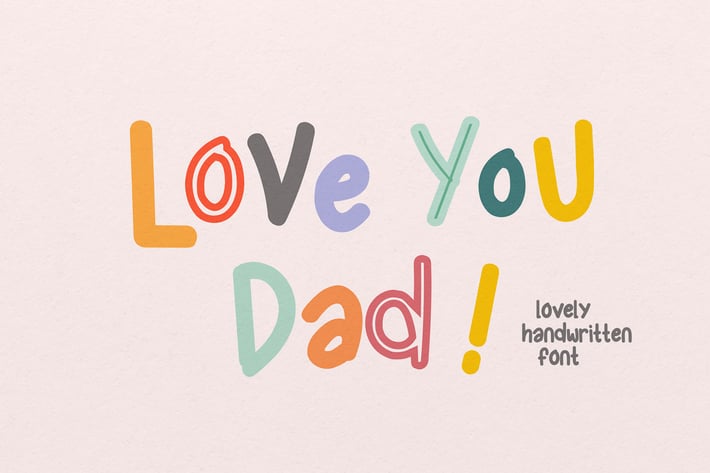
Love You Dad - Lovely Handwritten Font
Love You Dad is a handwritten font with a cute and lovely theme, making it the perfect choice for a variety of design projects. The font features a unique, hand-drawn style that adds a lovely touch to any design. The letters have a playful and friendly feel, with rounded edges and a casual flow.
The Love You Dad font is perfect for creating heartfelt messages and invitations, and it can also be used for branding, packaging, and other design projects. The font includes uppercase and lowercase letters, numerals, and punctuation marks, and it comes in multiple formats for easy use in different design software. Overall, Love You Dad is a font that will bring a touch of warmth and love to any project.